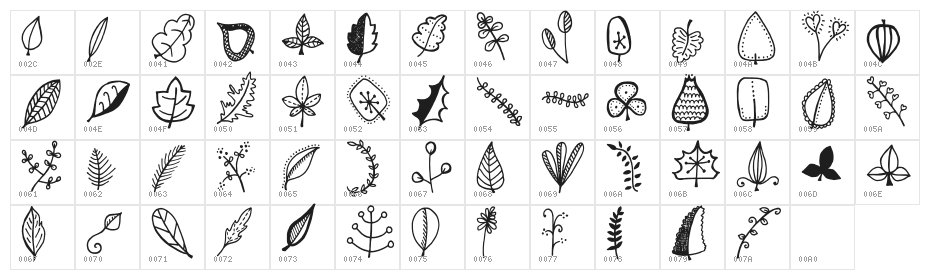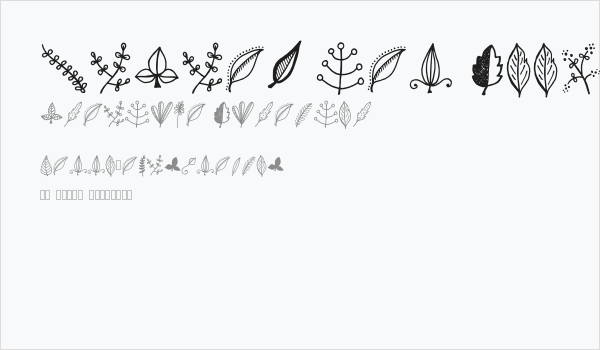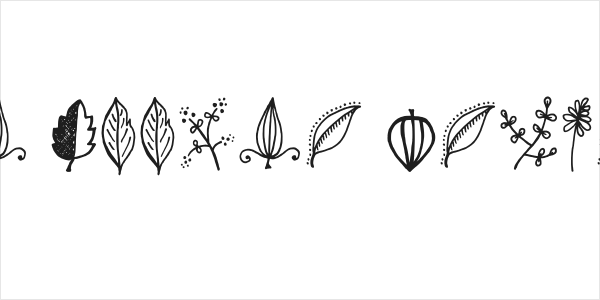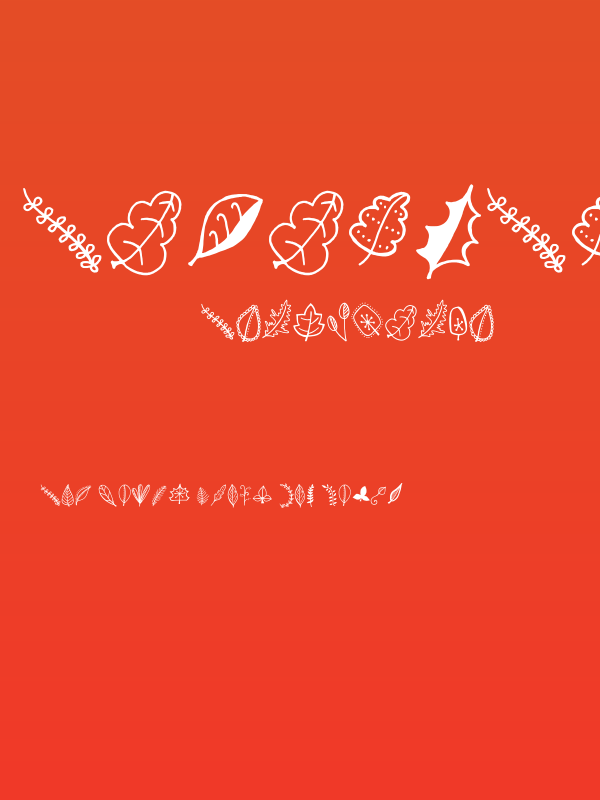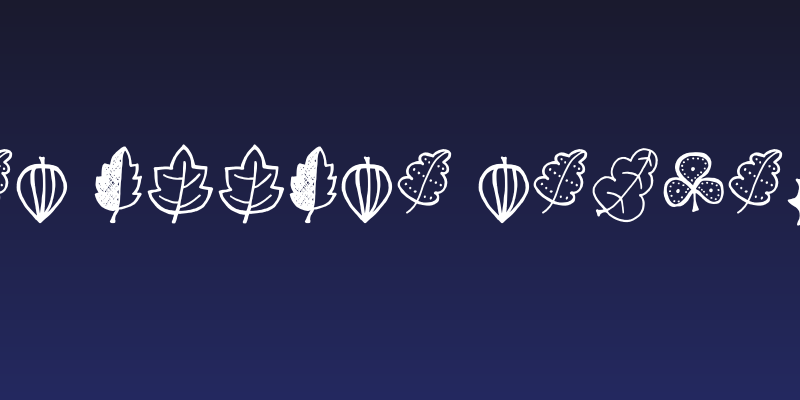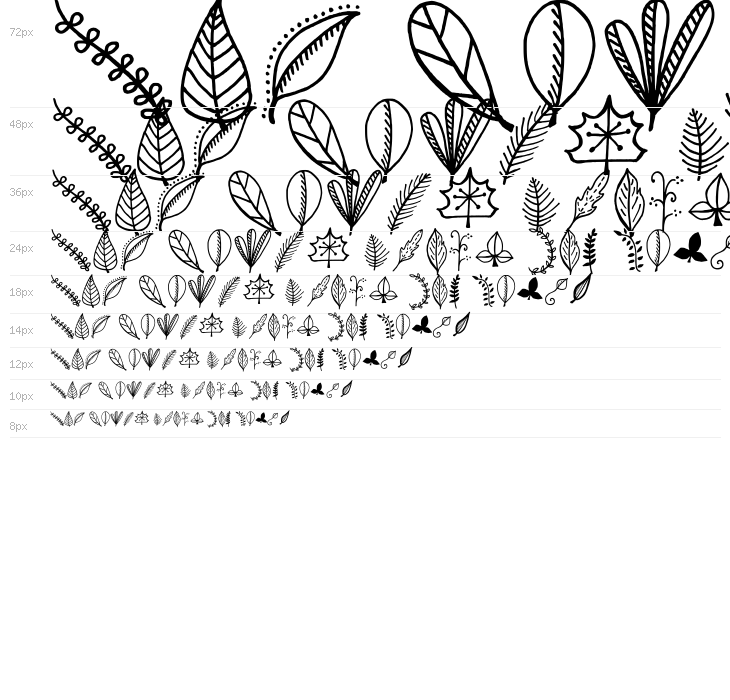
Tanaestel Doodle Leaves Regular Font
Tanaestel Doodle Leaves Regular Description
This is a decorative and playful font that features a variety of hand-drawn leaf designs. Each character is represented by a unique leaf illustration, showcasing different shapes, patterns, and textures. The style is whimsical and artistic, making it ideal for projects that require a natural or organic feel. The font captures the essence of doodling with its freeform and imaginative leaf motifs, providing a creative touch to any design.
| Use Case | Logos, Art projects, Invitations |
| Proposed Projects | Ideal for nature-themed invitations, eco-friendly branding, scrapbooking, and creative art projects. |